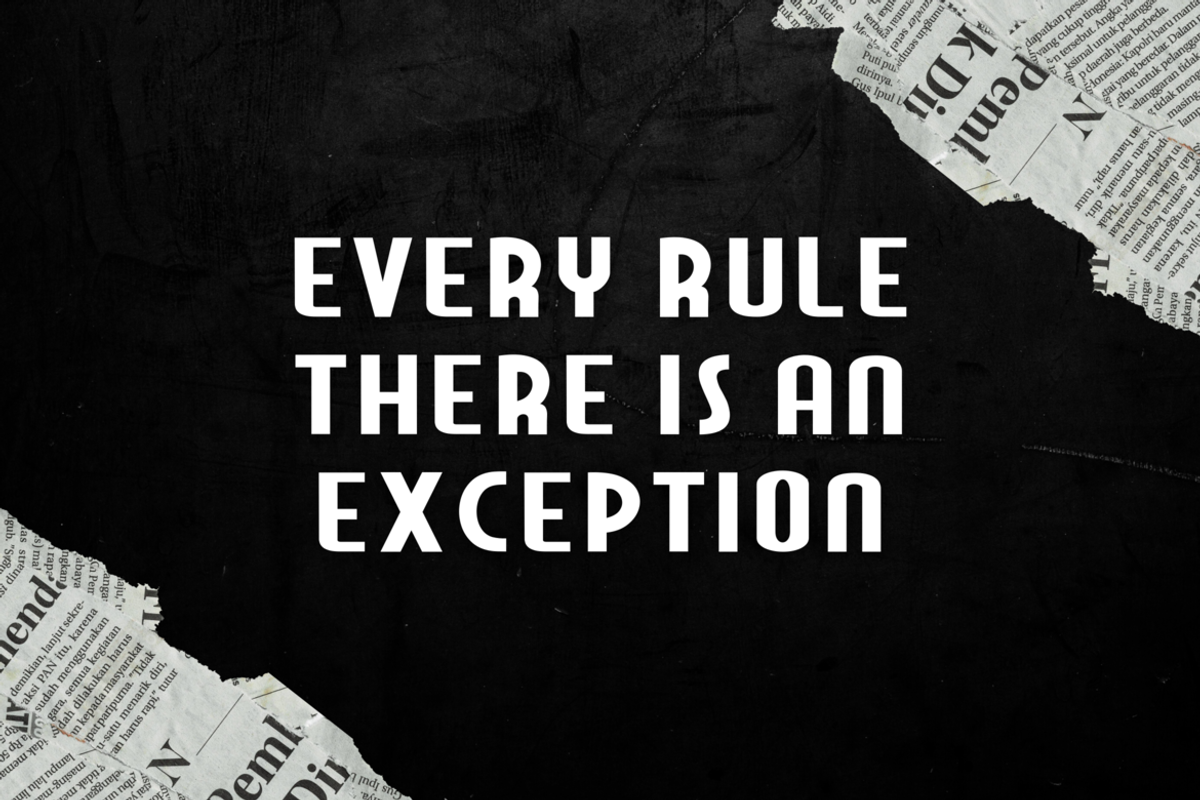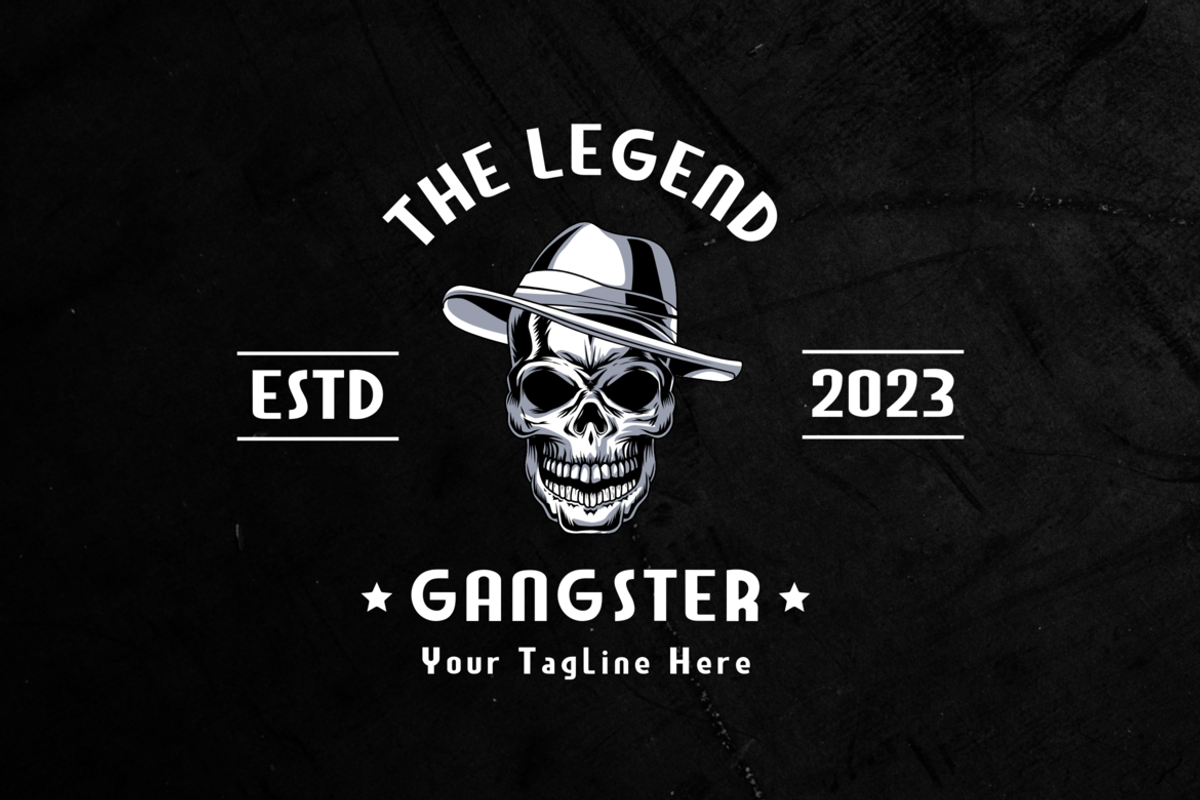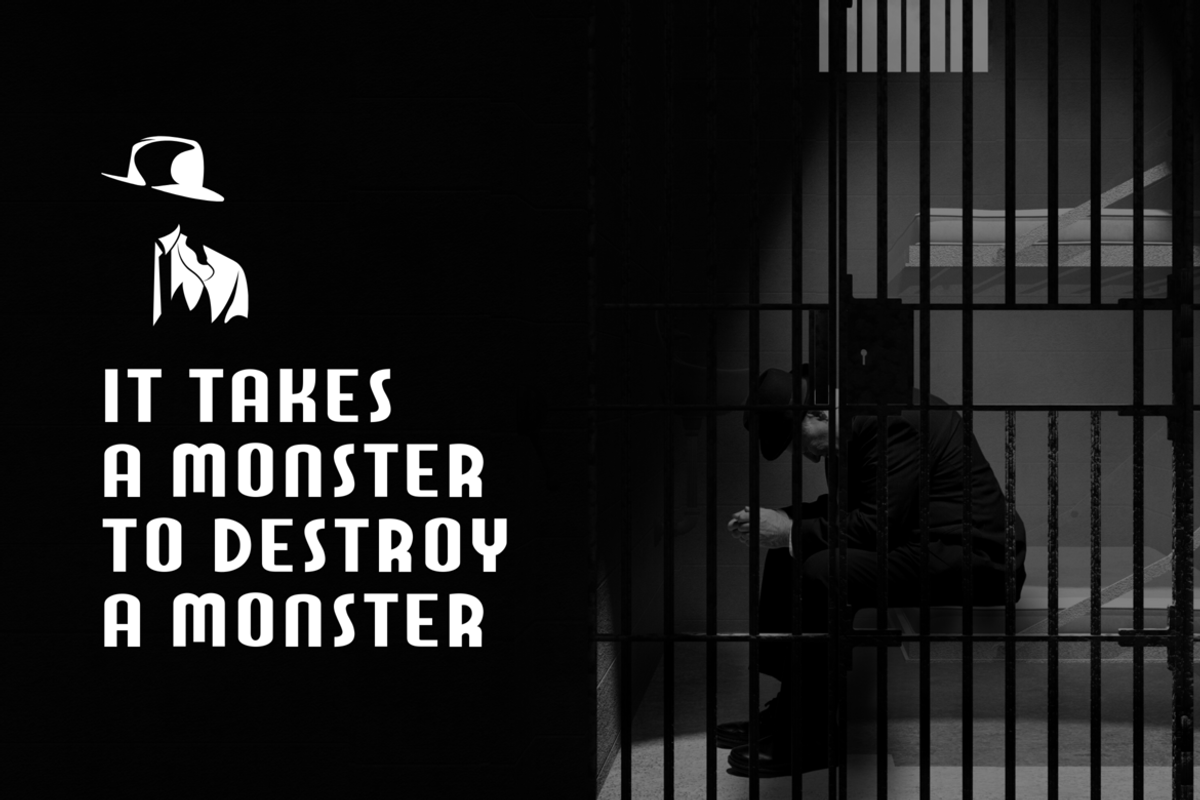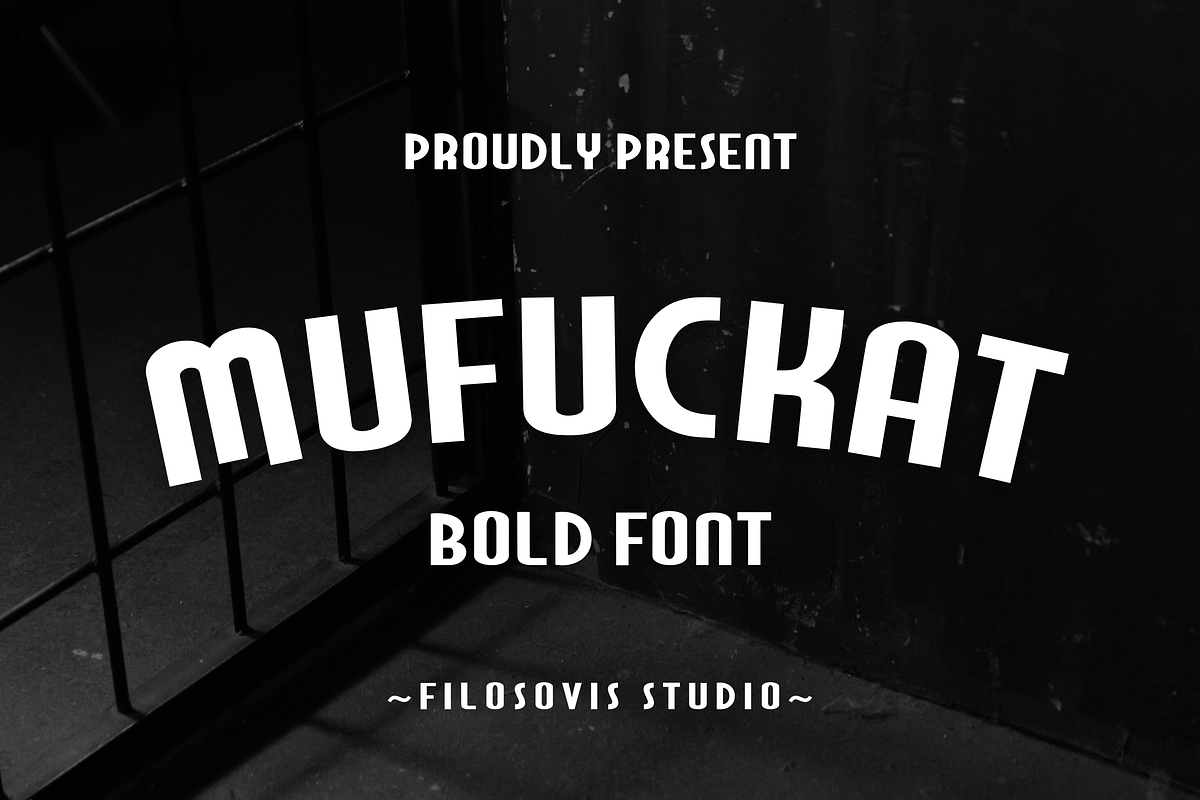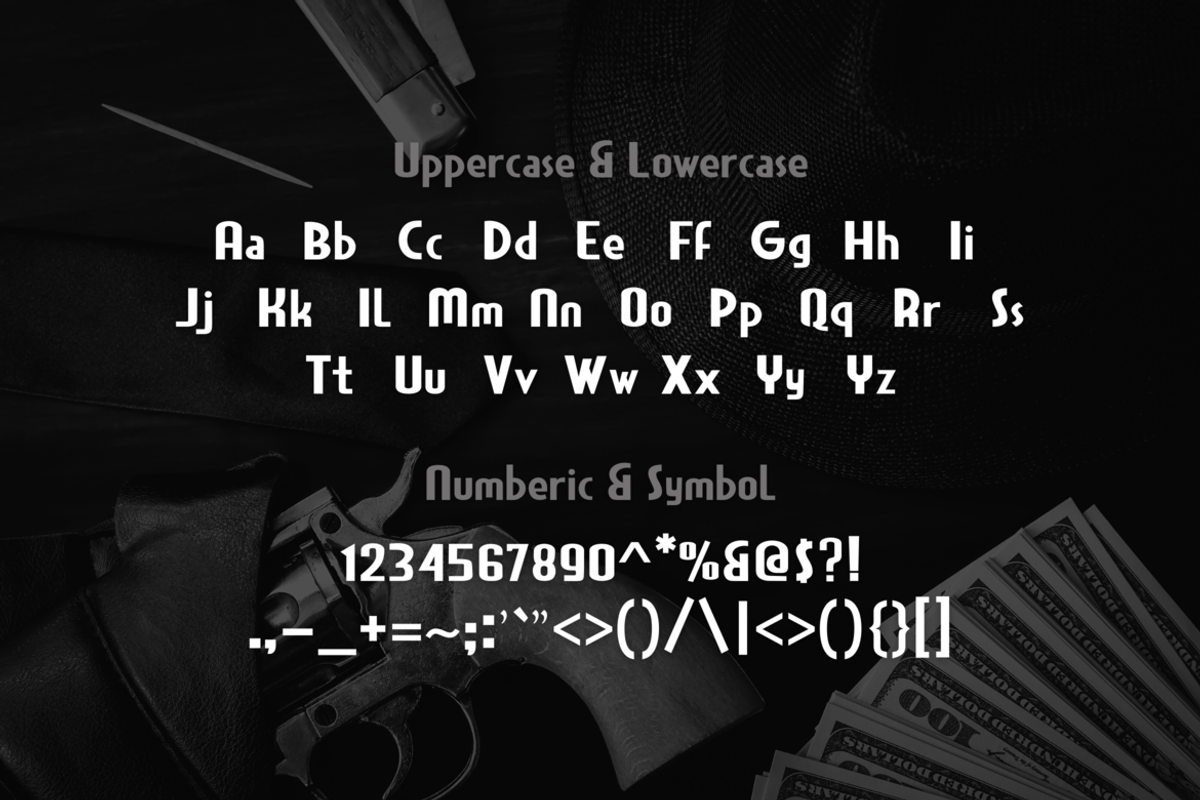
Mufuckat | Modern Slab Serif
Mufuckat font is characterized by a sans serif font with modern letter design. The sans serif font style also adds a simple and attractive feel that is approachable, making it a friendly and attractive choice for any project.
- Uppercase Characters
- Lowercase Characters